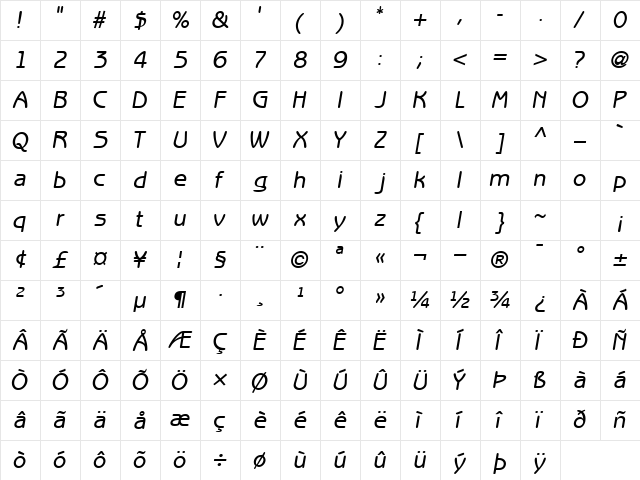
ExpressDecoGothicSSK Italic
Design Context for ExpressDecoGothicSSK
ExpressDecoGothicSSK takes a clean, functional approach - its unadorned letterforms prioritise legibility and work reliably across screen and print environments. The slanted form adds forward momentum and visual energy.
Font Pairing: Works well alongside a characterful serif or display font that can carry the expressive load while ExpressDecoGothicSSK handles the functional copy.
Pro Tip: Use ExpressDecoGothicSSK for UI labels, navigation, and short-form body copy where clean legibility is the priority.